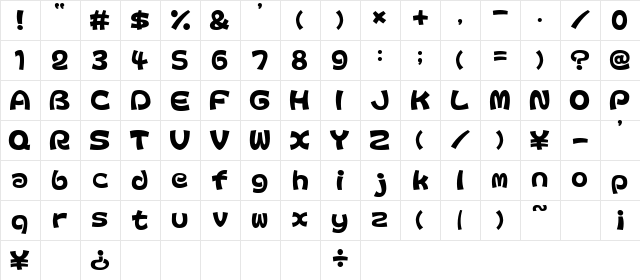
ColopocleAL Regular
Design Context for ColopocleAL Typeface
ColopocleAL is a composed and adaptable typeface that performs quietly and consistently across a wide range of design contexts.